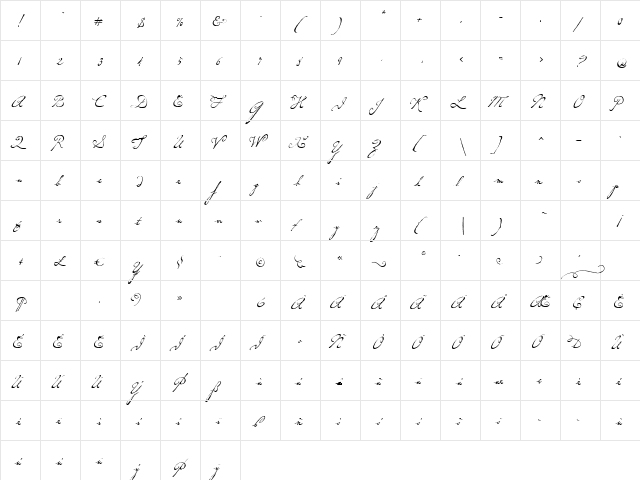
P22 Dearest Script Regular
| Foundry | P22 type foundry |
| Designer | Christina Torre |
Design Context for P22 Dearest Script Typeface
P22 Dearest Script flows with the natural rhythm of handwritten lettering, making it ideal for designs that call for warmth and personal expression.